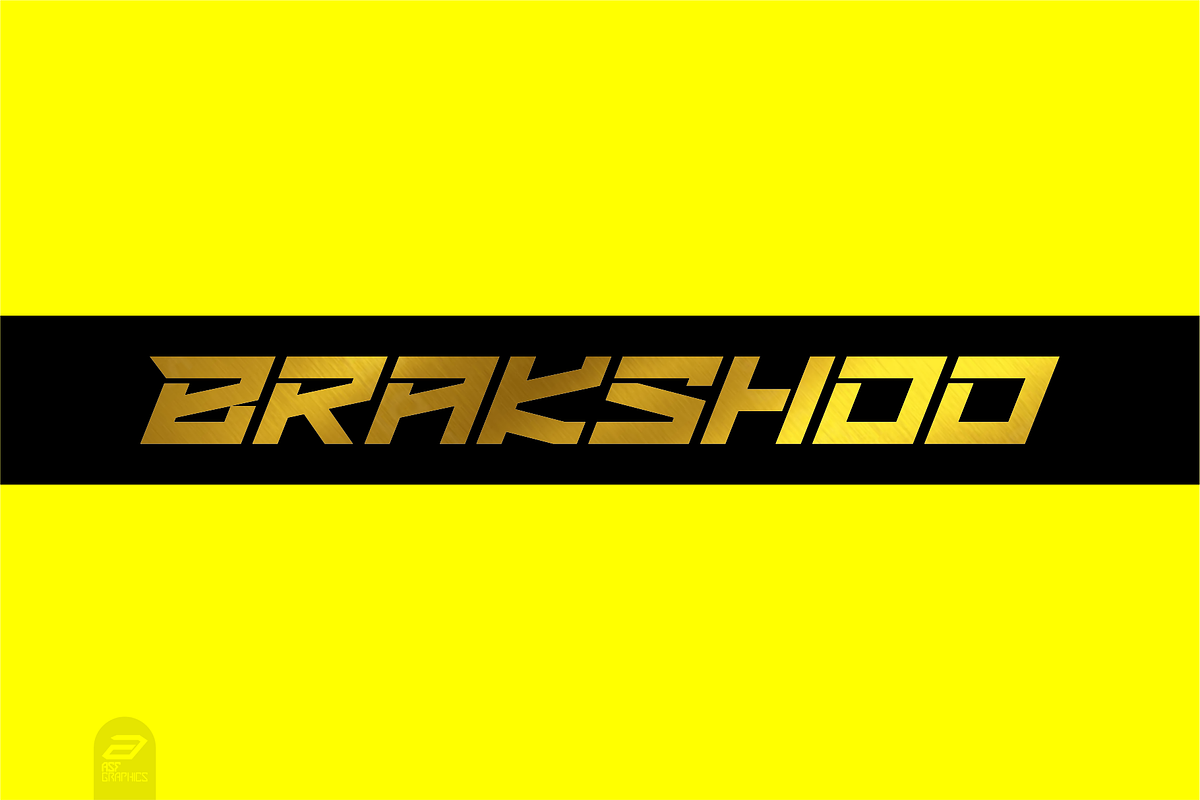
Brakshoo Free Download
Brakshoo Font Free Download
Brakshoo Font Free Download is a bold and contemporary typeface designed to make a strong statement in any design. With its unique character, geometric shapes, and clean lines, this font is perfect for creating impactful logos, headlines, posters, branding, and social media content. Whether you're working on a modern brand identity, a creative event, or a digital project, Brakshoo Font Free Download gives your designs a modern edge while maintaining clarity and readability. Experiment with its bold style in personal projects before purchasing a commercial license and elevate your designs with this striking, versatile font.